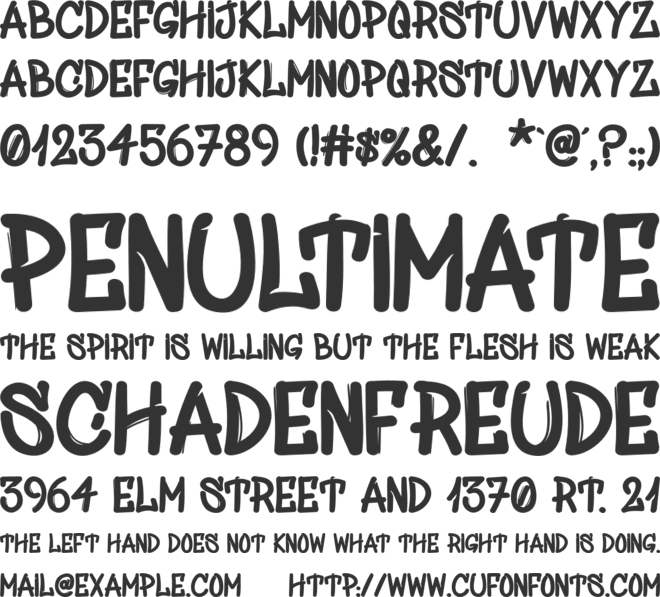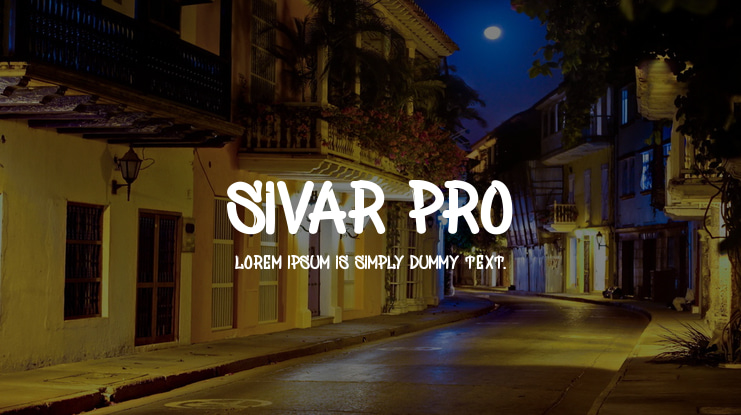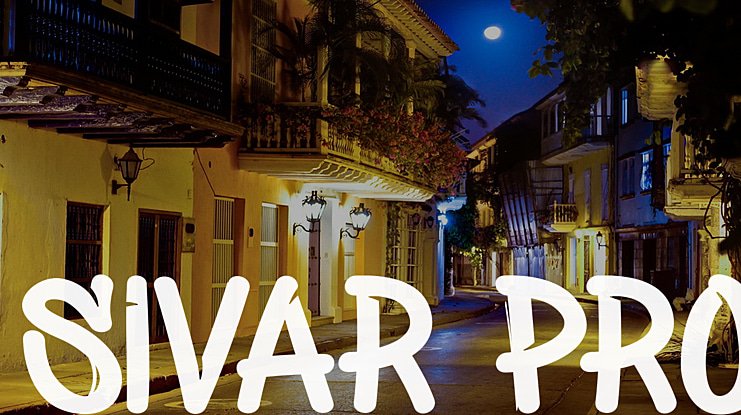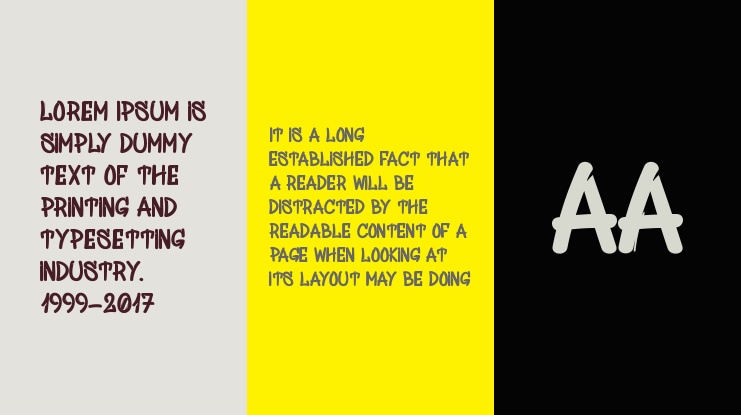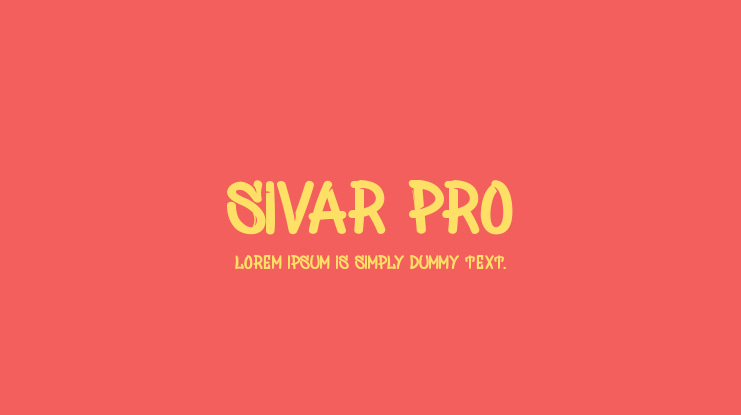
Sivar Pro Font
Juan Miguel Castillo
A street tag urban style inspired display font that is perfect for short words all type design, the file includes .OTF format.